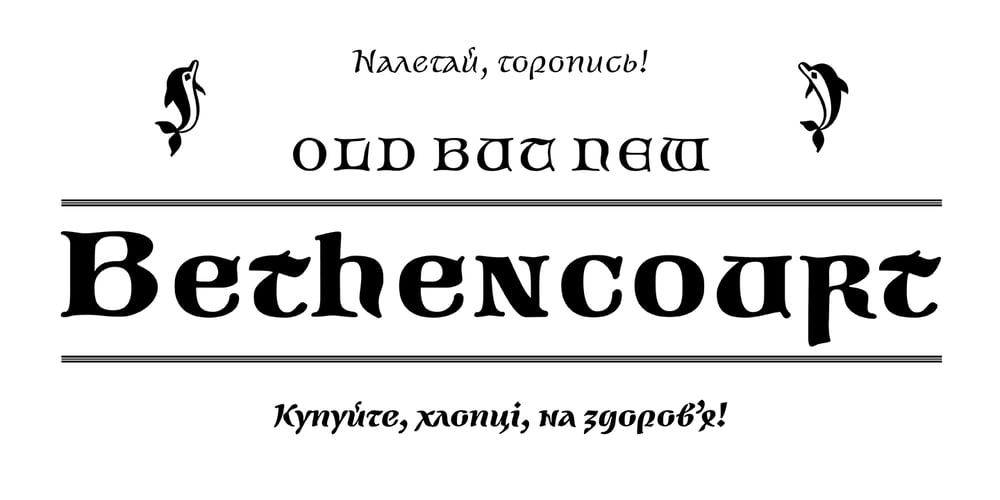
Bethencourt
Bethencourt font
Bethencourt Font Family was designed by Viktor Kharyk and published by Apostrof. Bethencourt contains 4 styles and family package options. Bethencourt is a font family designed by Vsevolod Buravchenko & Viktor Kharyk with technical support by Konstantin Golovchenko. It is based on uncial, half-uncial, Old Roman Cursive and New Roman Cursive. The character set includes Latin Extended characters, stylized Cyrillic and decorative elements in the form of playing dolphins.